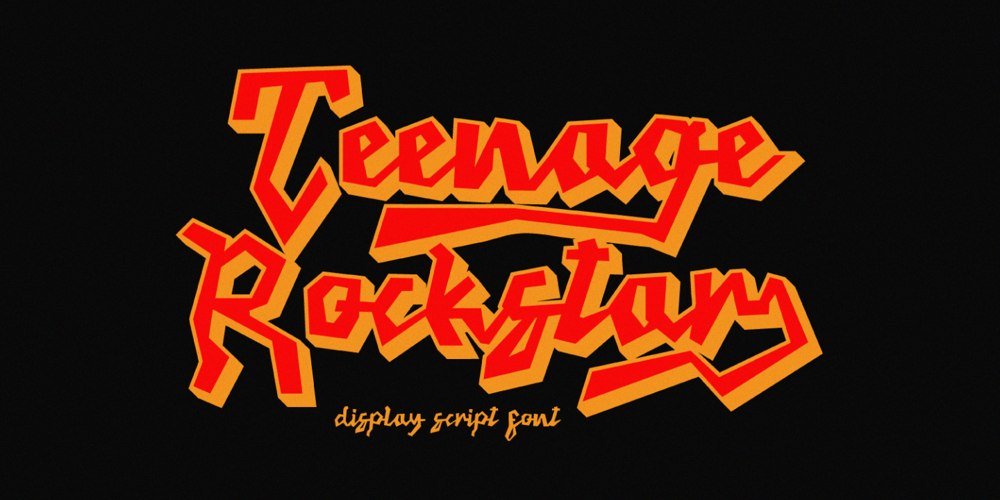
Teenage Rockstar
Teenage Rockstar Font Family was designed by Miftahul Habib and published by Teenage Foundry. Teenage Rockstar contains 2 styles and family package options. TF Teenage Rockstar Display Script Font – a stylized design that is sure to bring a touch of elegance and sophistication to your projects. Our font features swooping tails on select lowercase letters, adding an extra level of flourish and personality that is sure to capture attention.There are 2 styles available (Regular & Extrude).Both font versions are meticulously crafted with attention to detail, ensuring that each letterform maintains its structural integrity while still conveying its unique style. With our display script font, you can create designs that are both elegant and impactful, giving you the freedom to express your creativity with confidence.Features: Uppercase, Lowercase, Numeral, Opentype Features, Punctuation & Multilingual.Note: To access tails, just type underscore + numeral.The alternates feature must be active. Example __3For any questions please contact me 🙂Thanks!